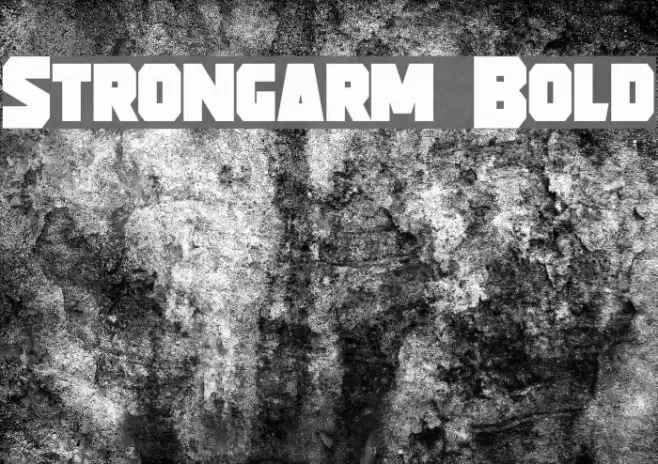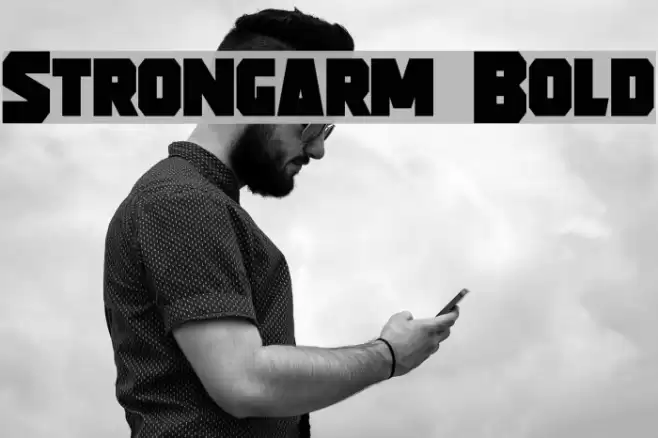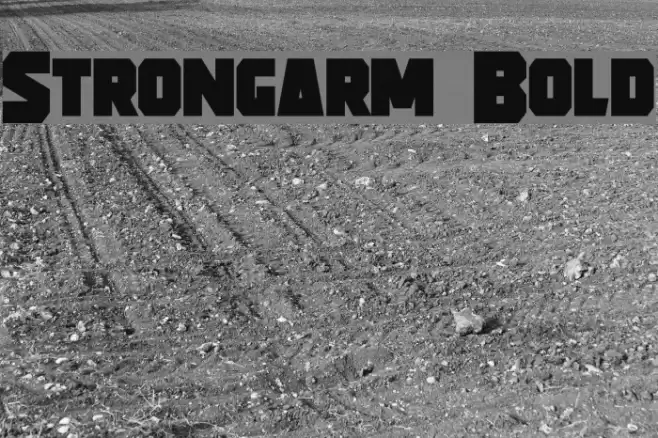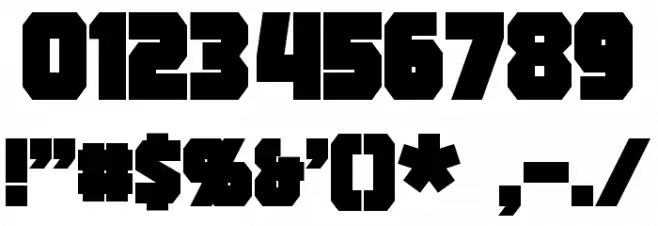
Strongarm Bold Font
Strongarm Bold Description
This font features a bold and commanding presence with its thick, blocky letterforms. The geometric shapes and sharp angles give it a strong, industrial feel, making it ideal for attention-grabbing designs. Its uppercase and lowercase letters maintain a consistent weight, ensuring uniformity across text. The numerals and special characters are equally robust, complementing the overall aesthetic. This font's solid structure and impactful style make it suitable for projects that require a powerful visual statement.
A bold, geometric font with a strong, industrial aesthetic from Uncategorized fonts.
- Proposed Projects: Ideal for posters, logos, headlines, and branding materials that need a bold and impactful look.